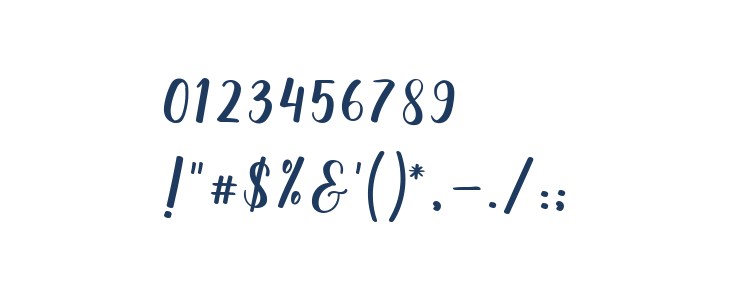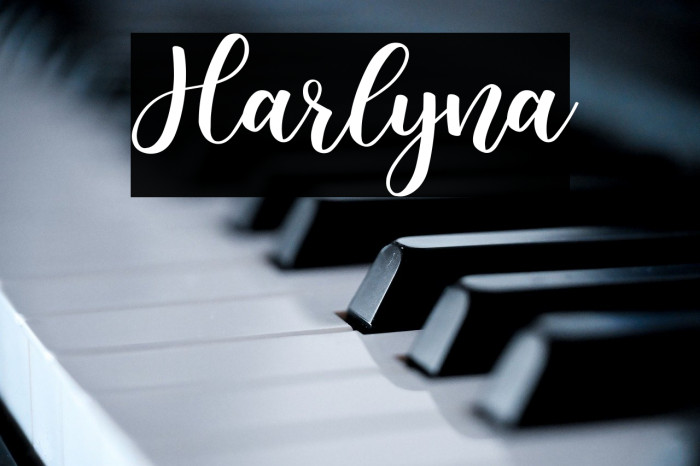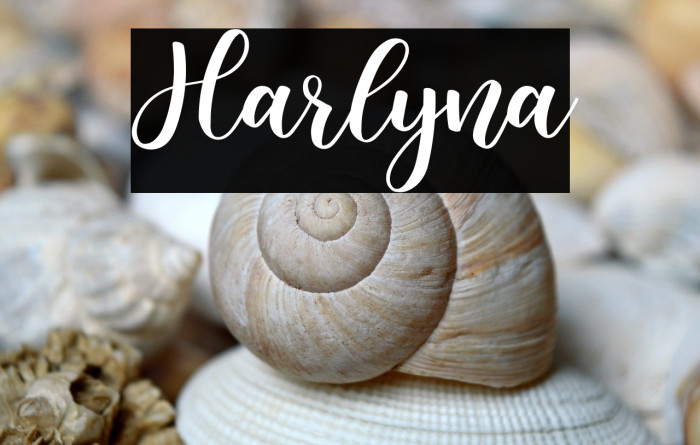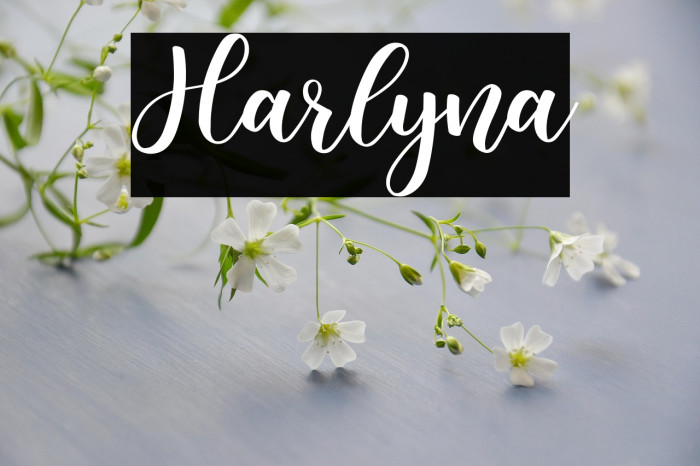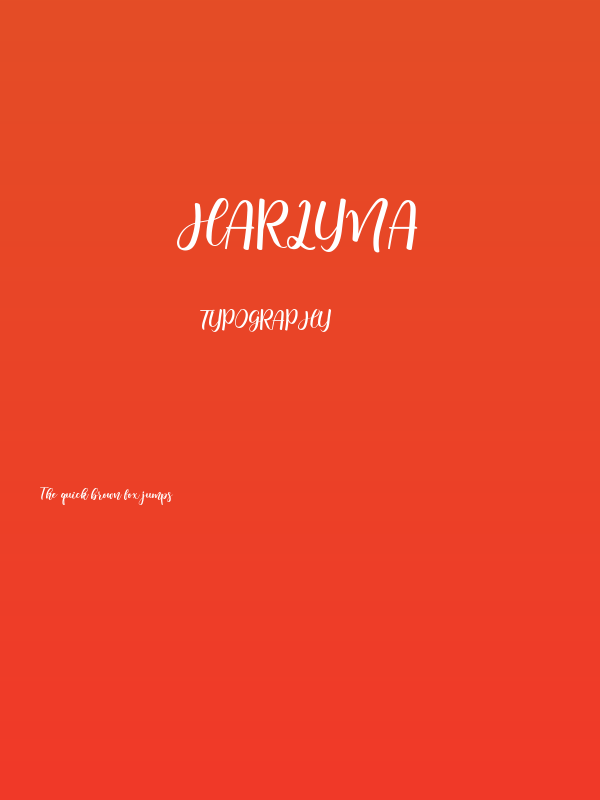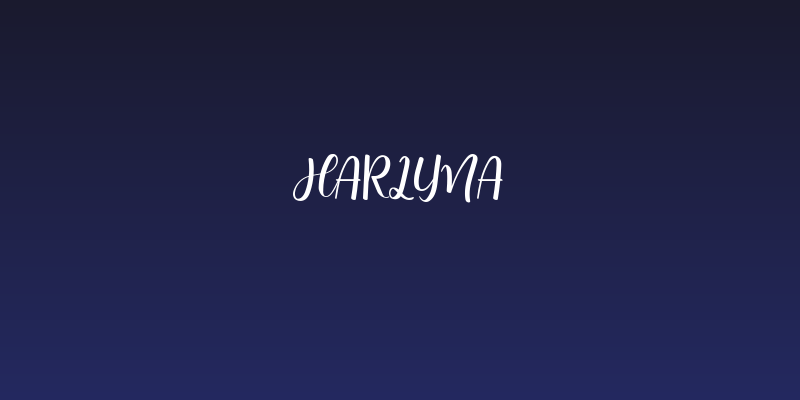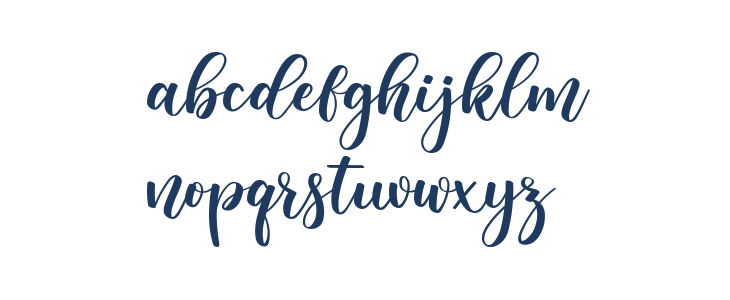
Harlyna Font
Harlyna Description
This font exudes a lively and energetic vibe with its flowing, cursive script style. Each letter is crafted with smooth, sweeping curves that give it a sense of motion and elegance. The uppercase letters are bold and prominent, while the lowercase letters maintain a consistent flow, making it ideal for creating a harmonious look. The numerals are equally stylish, matching the overall aesthetic of the alphabet. Special characters are included, maintaining the same fluidity and style, ensuring versatility in design projects. This font is perfect for adding a personal touch to any creative work.
Use CaseLogos, Headlines, Invitations
Proposed ProjectsIdeal for wedding invitations, greeting cards, branding, and social media graphics.